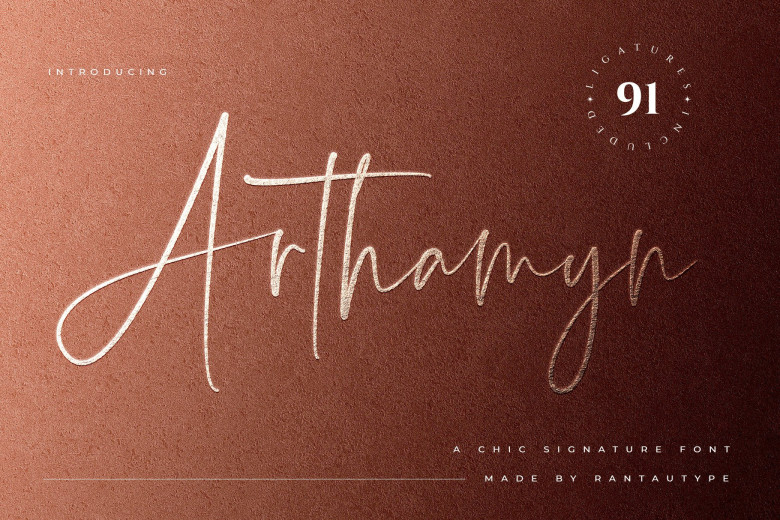
Arthamyn Font
Arthamyn is an elegant script font with class and class. Its fluid strokes and elegant curves radiate sophistication and elegance – ideal for logos, branding and invitations with its sophisticated lines and fluid movement. Perfectly suitable for logos, branding and invitations of all types, Arthamyn will leave an everlasting impression when added to designs!
Arthamyn Signature Script Font